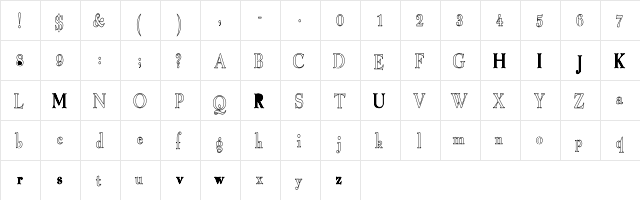
GraphicHC Regular
Design Context for GraphicHC Typeface
GraphicHC takes a measured approach to typography — its balanced proportions and neutral character make it a reliable workhorse for both digital and print work.